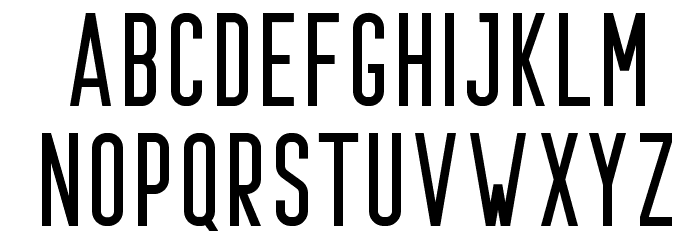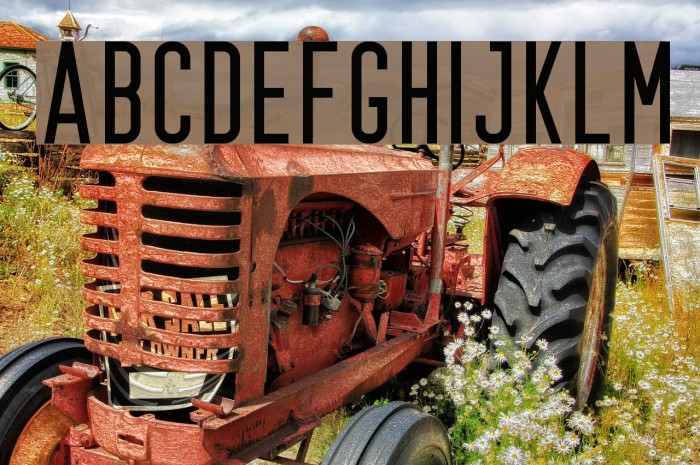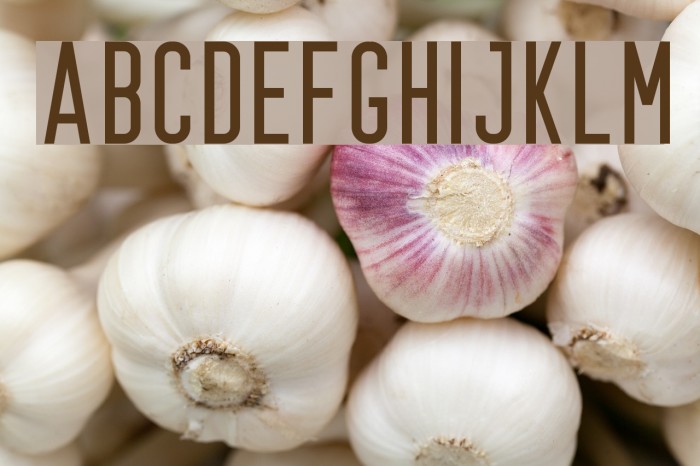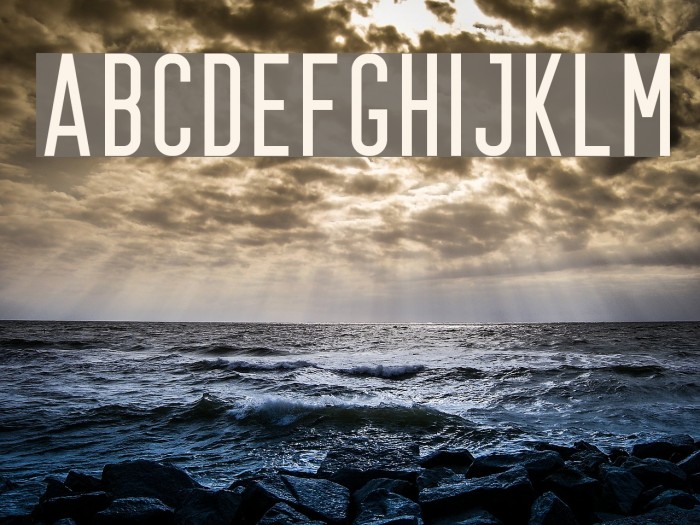
Prestage Font
This font features a bold and modern sans-serif style with clean, straight lines and a uniform stroke width. The characters are tall and narrow, giving a condensed appearance that enhances readability while maintaining a sleek and professional look. The uppercase letters exhibit a consistent height, and the lowercase letters are proportionally smaller, maintaining the same width. The numbers and special characters are designed to match the overall aesthetic, ensuring a cohesive appearance across all text. This font is ideal for creating impactful headlines and titles, where clarity and style are paramount.
A bold, modern sans-serif font with a condensed and sleek design.
- Proposed Projects: Ideal for branding, advertising, headlines, posters, and digital media where a modern and impactful look is desired.